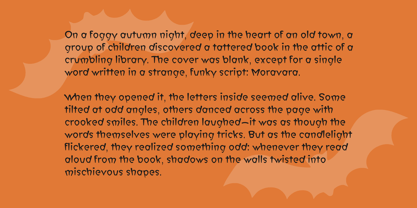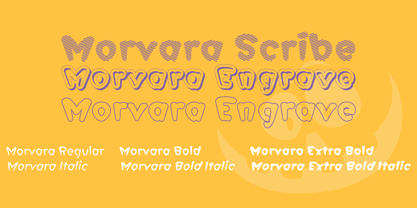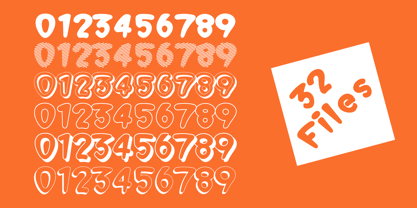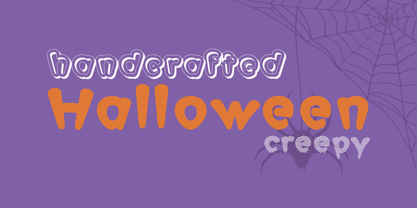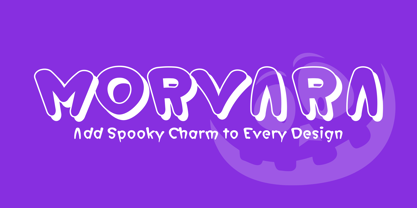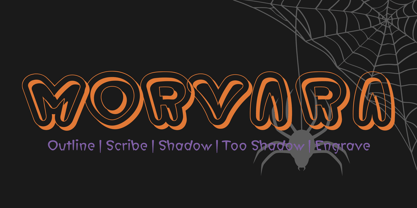
Morvara
by Kufic Studio
The Morvara Font Family was designed by Ahsan Ahmedzai and published by Kufic Studio. Morvara contains 32 styles and family package options.
Morvara is a spooky and playful Halloween font designed to bring a bold, funky twist to your seasonal projects. Perfect for posters, invitations, party flyers, packaging, and social media graphics, Morvara captures the spirit of Halloween with its quirky, handcrafted style. This font family comes with multiple creative variants to give you flexibility and flair: Outline Version for bold, eye-catching titles Scribe Version for a hand-drawn, eerie feel Shadow Version for extra depth and dimension Extreme Shadow Version for dramatic, standout designs Engrave Version for a creepy, carved look Whether you’re designing spooky headlines, haunted house posters, trick-or-treat invitations, or funky DIY projects, Morvara delivers versatility and charm. Its handcrafted, funky letters make it a perfect choice for anyone looking to add a fun yet spooky touch to their Halloween designs.